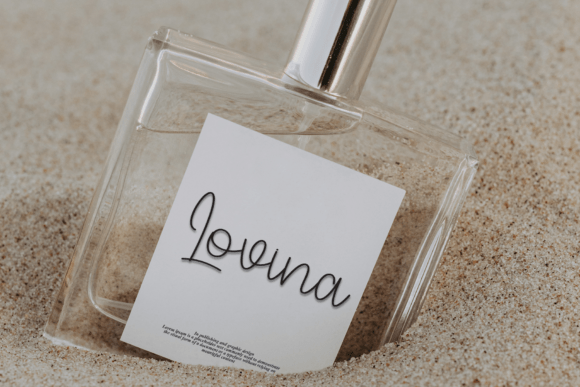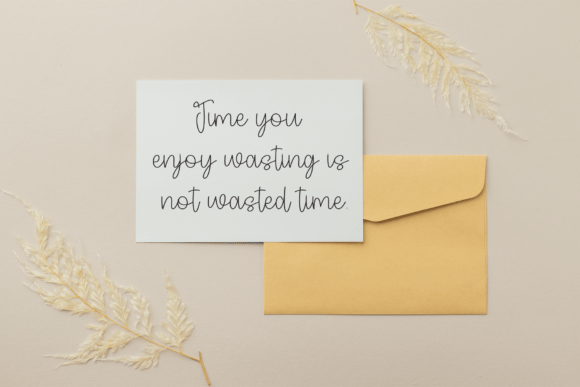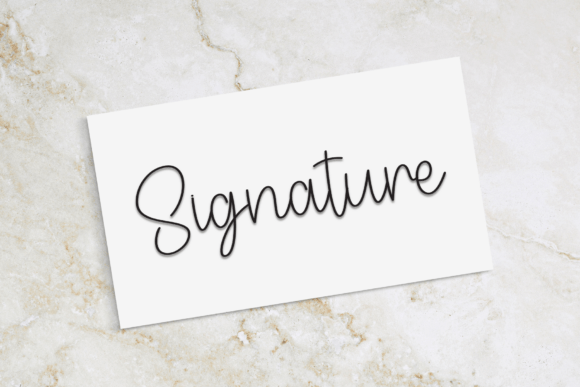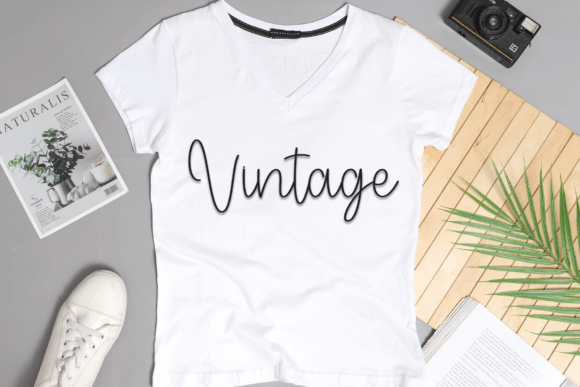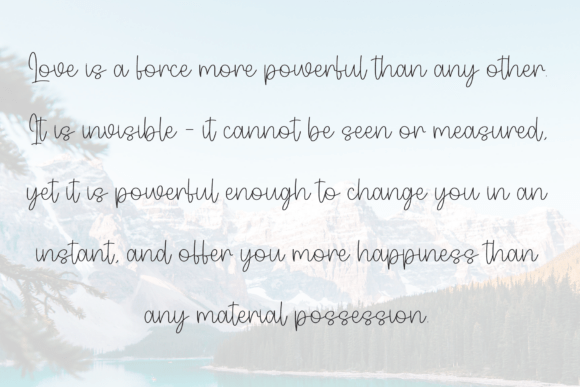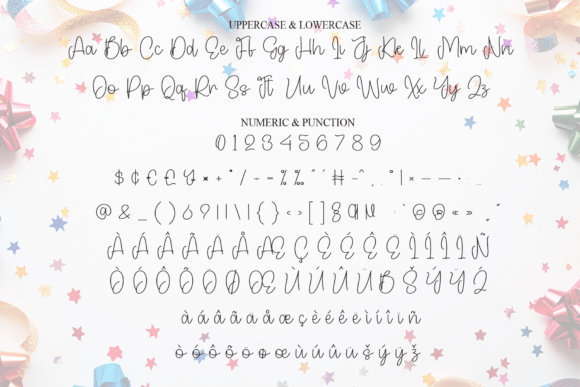
Introducing Birthday Font: The Ultimate Elegant Script for Your Creative Projects
Are you searching for a font that embodies the perfect blend of elegance and playfulness? Look no further than Birthday Font, a stylish handwritten script that adds a touch of sophistication and whimsy to any design. With its flowing curves and natural rhythm, this beautiful font is ideal for invitations, branding, social media, and a wide range of creative projects.
The Unique Characteristics of Birthday Font
Birthday Font is a carefully crafted script font that boasts a range of distinctive features. Its elegant strokes and fluid connections create a sense of movement and energy, making it perfect for designs that require a touch of dynamism. The font’s natural rhythm and flowing curves give it a friendly, approachable feel that’s sure to captivate your audience.
One of the standout characteristics of Birthday Font is its ability to convey a sense of warmth and sophistication. Whether you’re designing an invitation, a logo, or a social media post, this font adds a personal, charming touch that elevates your design to the next level. Its graceful design makes it an excellent choice for a wide range of projects, from formal events to casual gatherings.
Why Choose Birthday Font for Your Design Projects?
So, why should you choose Birthday Font for your design projects? Here are just a few compelling reasons:
- Elegance and sophistication: Birthday Font’s elegant strokes and fluid connections create a sense of refinement and luxury that’s perfect for high-end designs.
- Playfulness and whimsy: This font’s playful, handwritten feel adds a touch of personality and charm to any design, making it ideal for creative projects that require a bit of flair.
- Versatility: Birthday Font is incredibly versatile, making it suitable for a wide range of design projects, from invitations and branding to social media and more.
- Easy to read: Despite its elegant and cursive nature, Birthday Font remains easy to read, making it perfect for designs that require a clear and concise message.
Using Birthday Font in Your Design Projects
Birthday Font is an incredibly versatile font that can be used in a wide range of design projects. Here are a few ideas to get you started:
- Invitations: Use Birthday Font to create beautiful, elegant invitations for weddings, birthdays, and other special occasions.
- Branding: Add a touch of sophistication and elegance to your brand with Birthday Font, perfect for logos, packaging, and marketing materials.
- Social media: Use Birthday Font to create eye-catching social media posts that showcase your personality and style.
- Crafting: Birthday Font is also perfect for crafters, adding a personal touch to handmade cards, gift tags, and other DIY projects.
Tips for Getting the Most Out of Birthday Font
To get the most out of Birthday Font, here are a few tips to keep in mind:
- Experiment with different sizes: Birthday Font looks great in a range of sizes, from large headings to smaller body text.
- Play with colors: This font looks stunning in a range of colors, from bold and bright to soft and pastel.
- Mix and match: Don’t be afraid to combine Birthday Font with other fonts to create a unique and eye-catching design.
In conclusion, Birthday Font is a stylish and elegant script font that adds a touch of sophistication and whimsy to any design project. With its flowing curves, natural rhythm, and playful feel, this font is perfect for designers and crafters looking to add a personal touch to their creations. Whether you’re designing invitations, branding, social media posts, or handmade crafts, Birthday Font is the perfect choice.